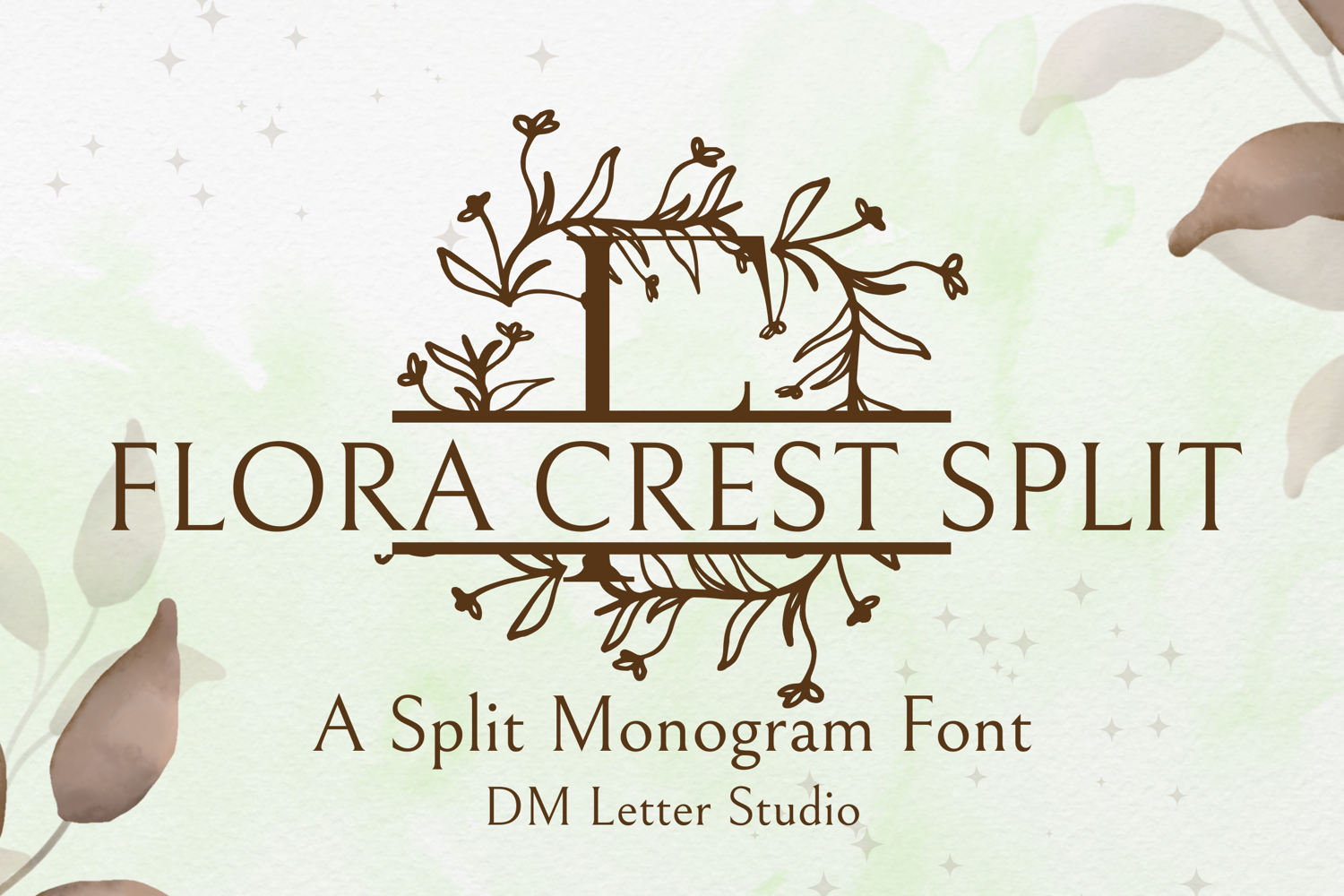
Flora Crest Split Monogram - Elegant Floral Split Monogram
Flora Crest Split Monogram
Flora Crest Split Monogram – Elegant Floral Split Monogram Font
Flora Crest Split Monogram is a classic serif monogram font featuring a clean split letter design enriched with graceful botanical elements. Each uppercase character is thoughtfully divided to allow space for custom names or text, while delicate floral flourishes frame the design with timeless elegance. This font is ideal for wedding signage, customized gifts, Cricut projects, and luxurious event branding.
• Split Letter Design: Horizontal split through each uppercase letter for easy name or phrase customization.
• Floral Accents: Romantic, nature-inspired details add sophistication to each monogram.
• Crafted for Customization: Perfect for wedding crests, name plates, custom logos, and upscale decor.
• Ideal For: Wedding invitations, Cricut crafts, floral branding, Customized gifts, home decor, and stationery.